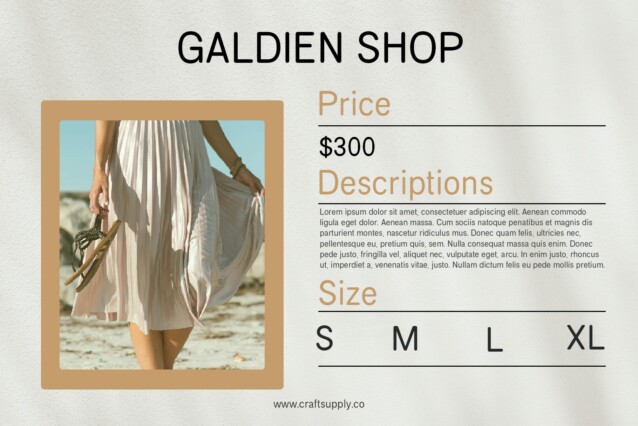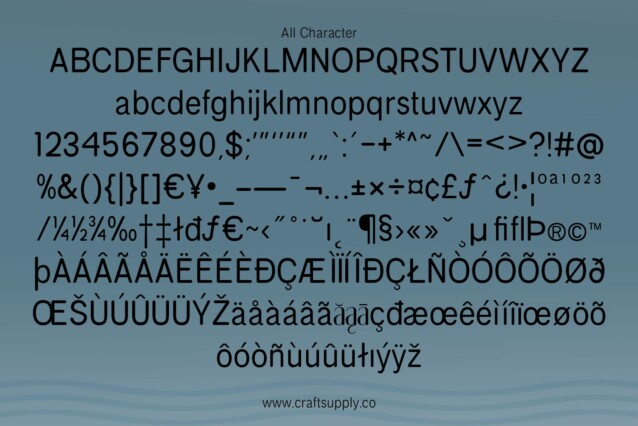
Galdien Rounded Font
Galdien Rounded Font is a low-contrast sans serif design that exudes professionalism and clarity. Its clean lines and uniform stroke widths create a sense of order and neatness.
Neat and Tidy Appearance The font boasts a tidy appearance, making it ideal for corporate settings where clarity and professionalism are paramount. Its precise letterforms ensure readability and consistency across various applications.